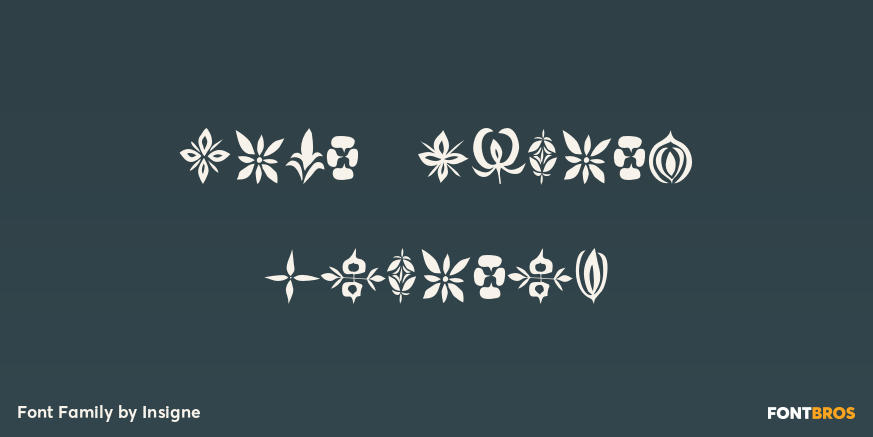
Blue Goblet Emblems
About Blue Goblet Emblems
The designer-favorite Blue Goblet family has grown with Blue Goblet Emblems. Blue Goblet Emblems are unique and abstract symbols that are rendered in Cory Godbey\’s unique illustration style. These creative and dynamic ornaments can be resized easily…